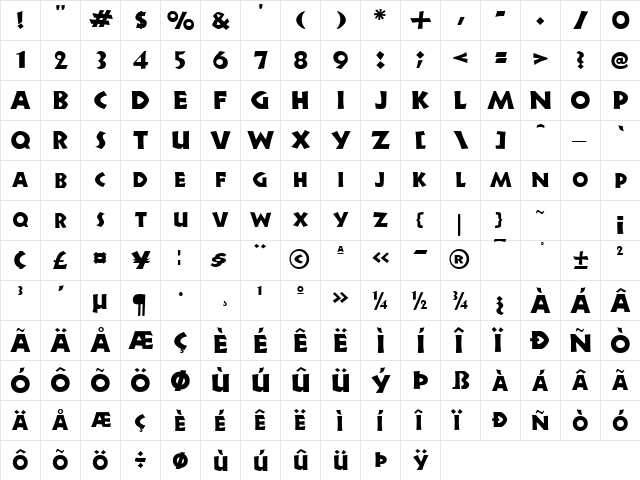
GE Stone Block Caps Regular
Design Context for GE Stone Block Caps Typeface
GE Stone Block Caps offers clean, dependable letterforms without strong stylistic allegiance, making it a practical choice for designers who need flexibility.